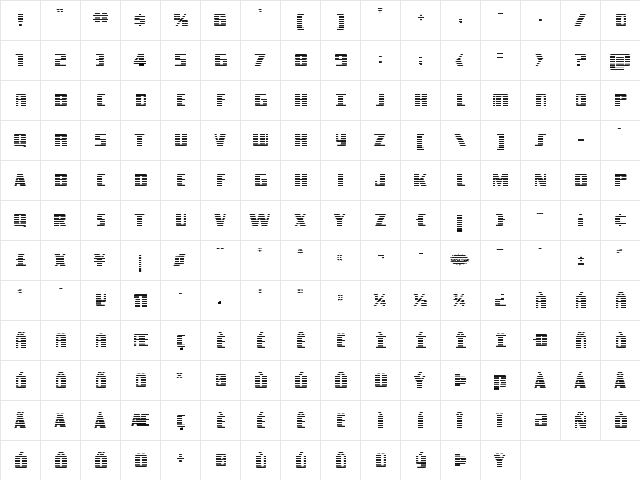
Typhoon Gradient Regular
Design Context for Typhoon Gradient Typeface
Typhoon Gradient is a composed and adaptable typeface that performs quietly and consistently across a wide range of design contexts.